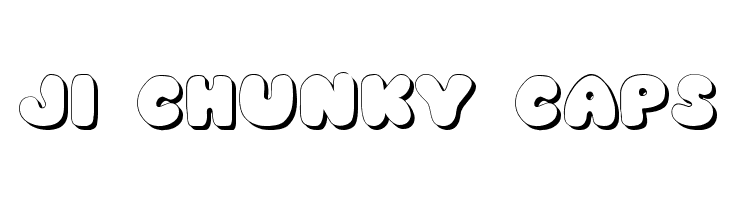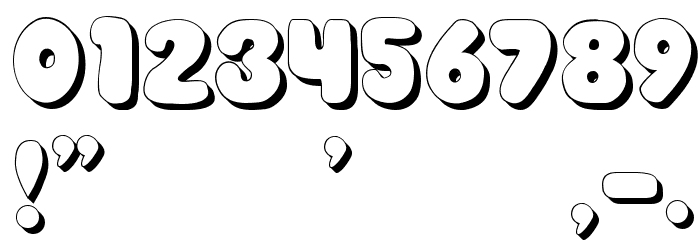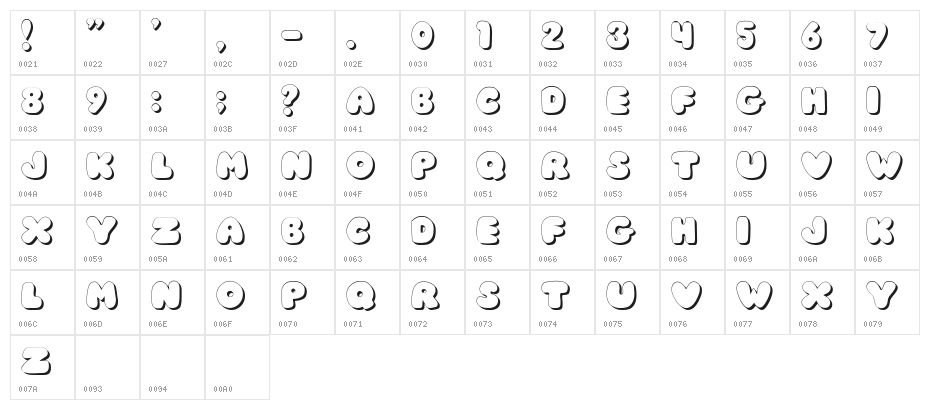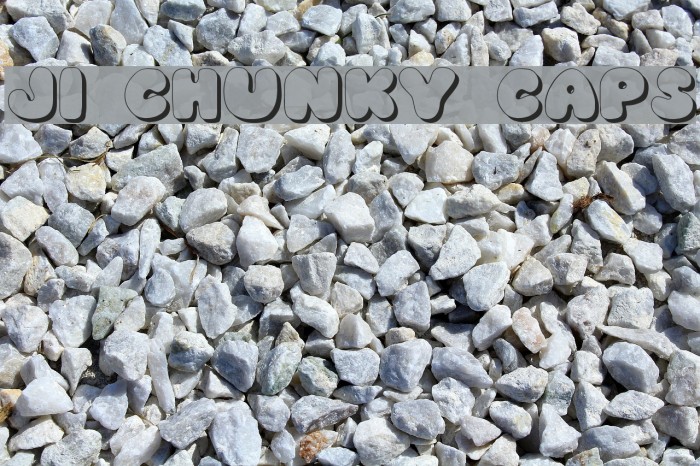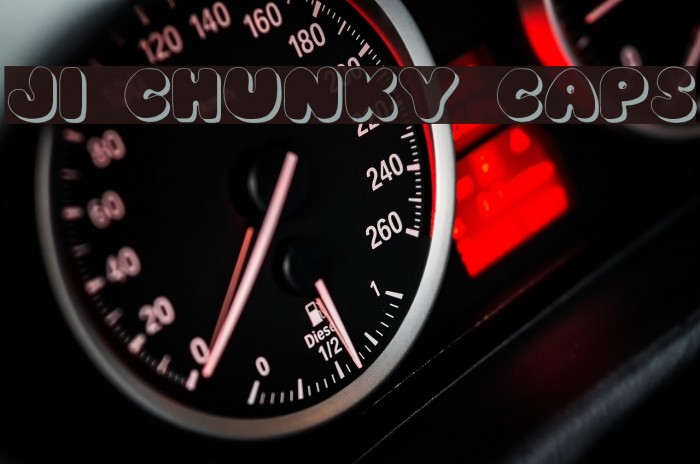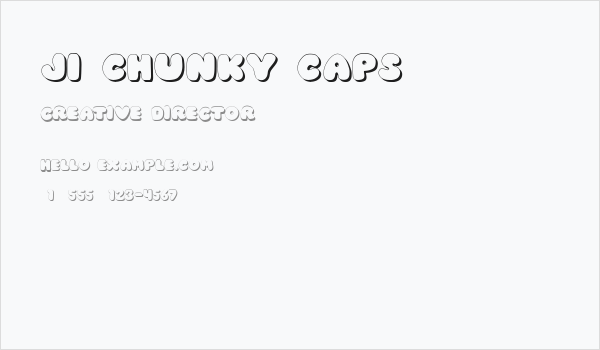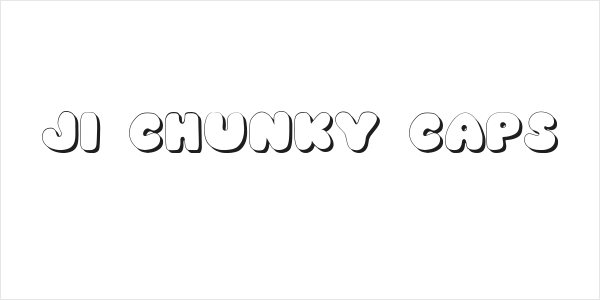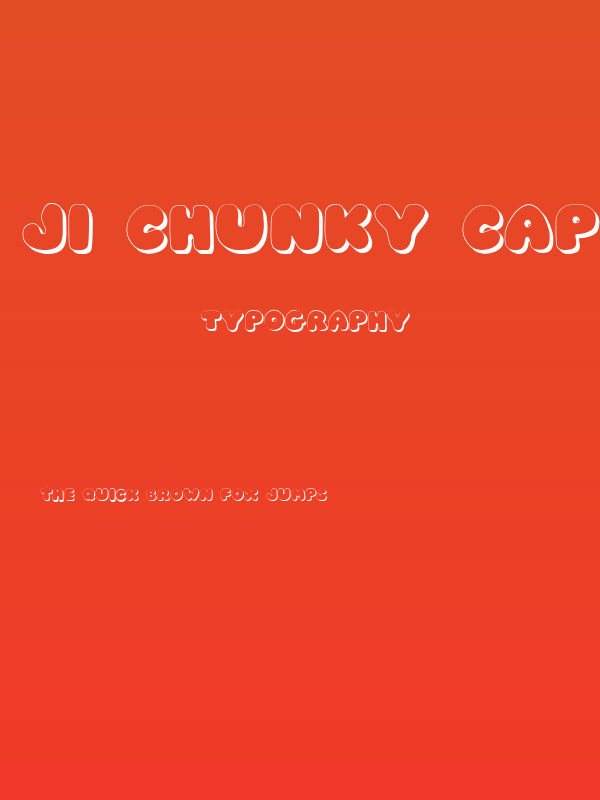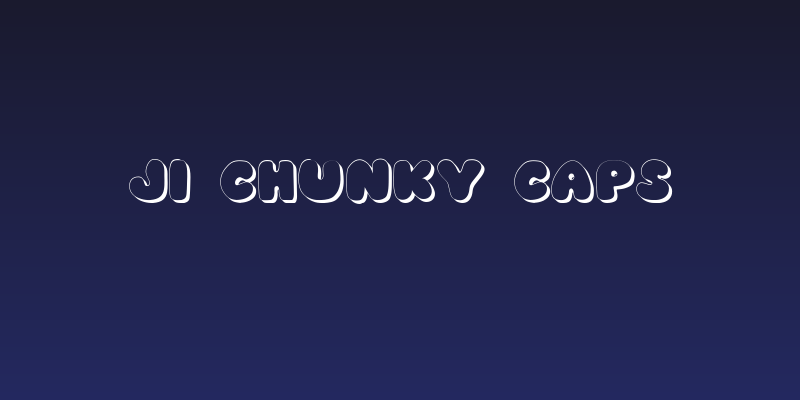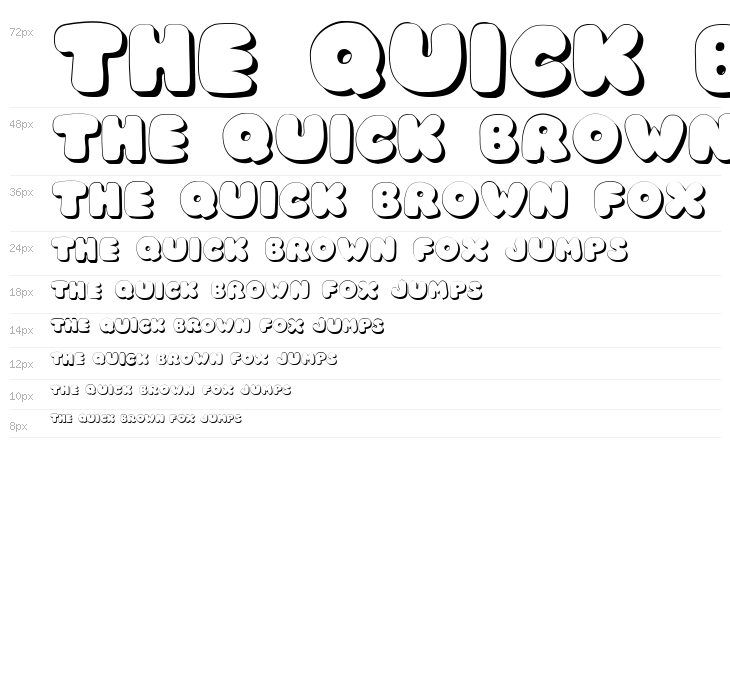
JI Chunky Caps Font
JI Chunky Caps Description
This playful and bold font features rounded, bubble-like characters that exude a sense of fun and whimsy. Each letter is thick and substantial, with a three-dimensional effect created by a shadow that gives the impression of depth. The characters are uniformly wide, contributing to a cohesive and balanced appearance. The font includes both uppercase and lowercase letters, numbers, and a selection of special characters, all maintaining the same chunky style. Its unique and eye-catching design makes it ideal for projects that require a lively and engaging visual impact.
| Overall Style | Playful, Fun |
| Proposed Projects | Perfect for children's books, playful branding, party invitations, and eye-catching posters. |